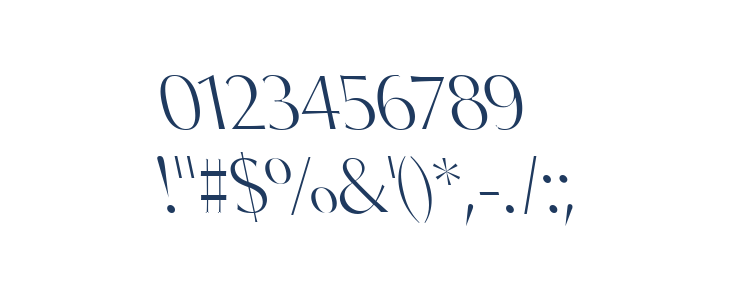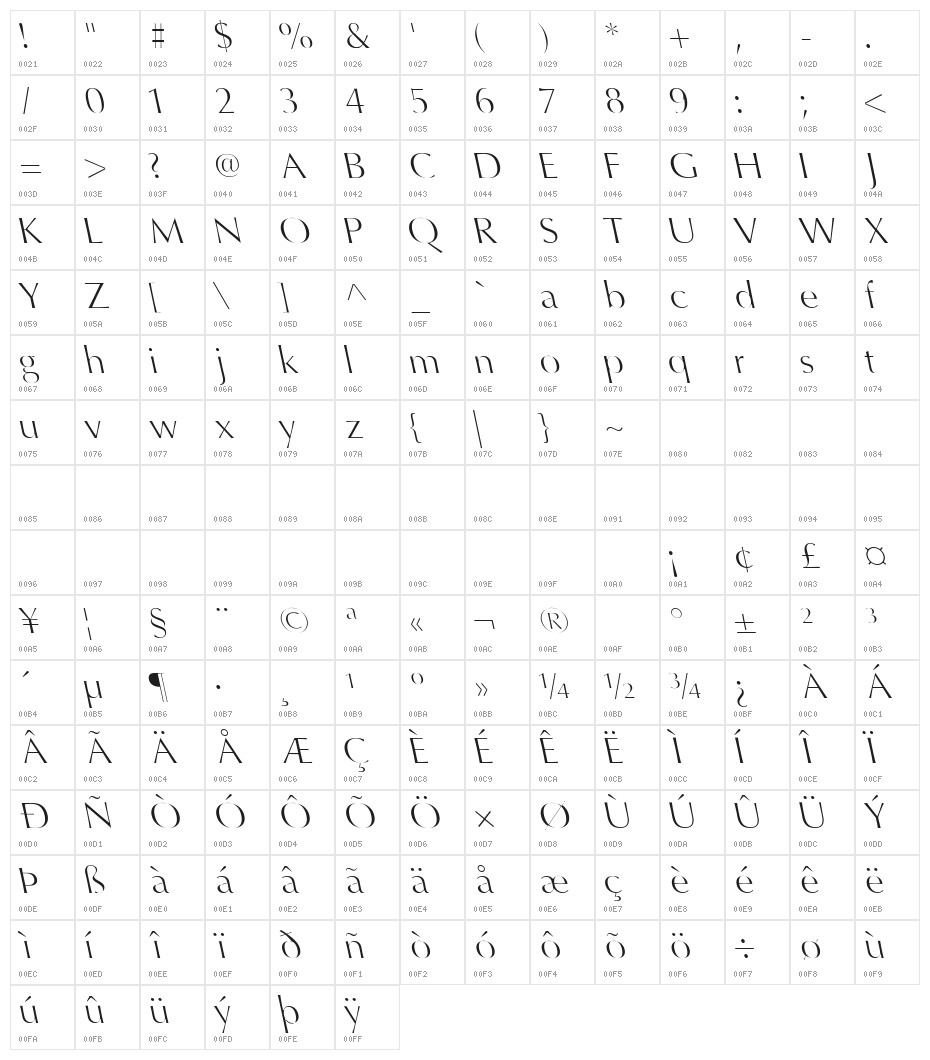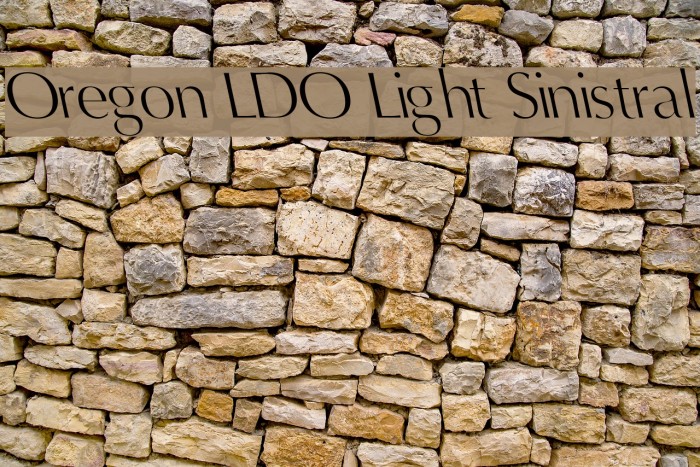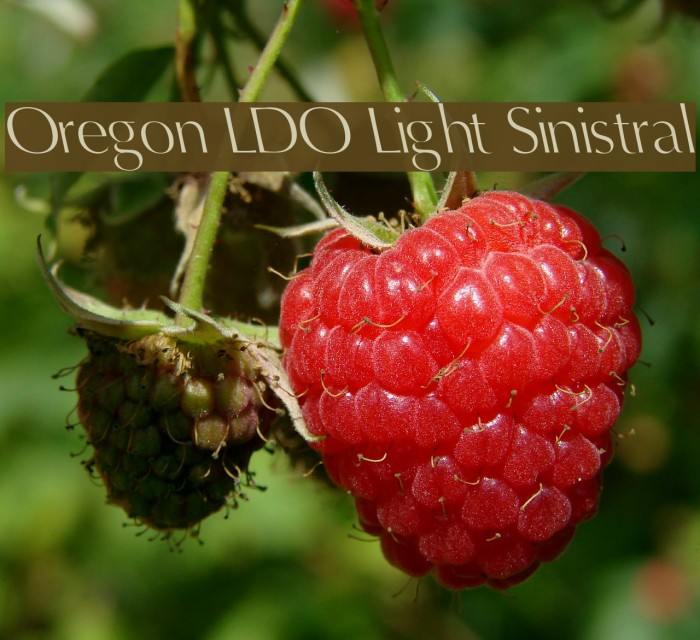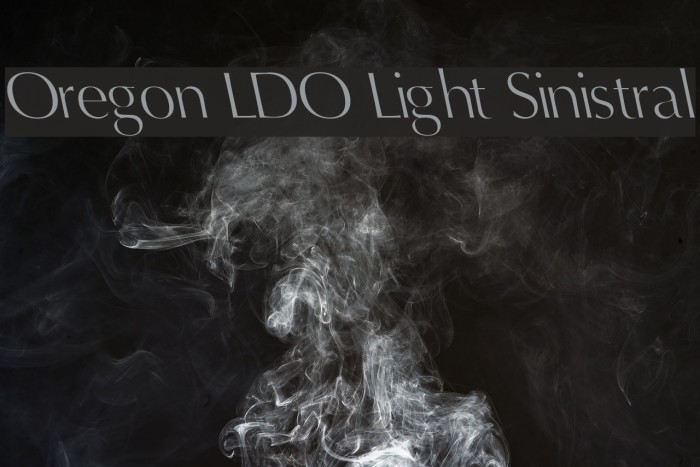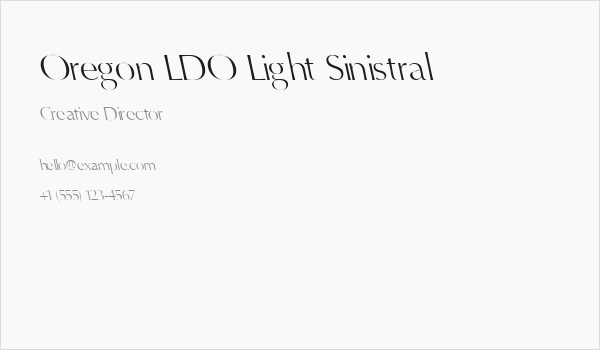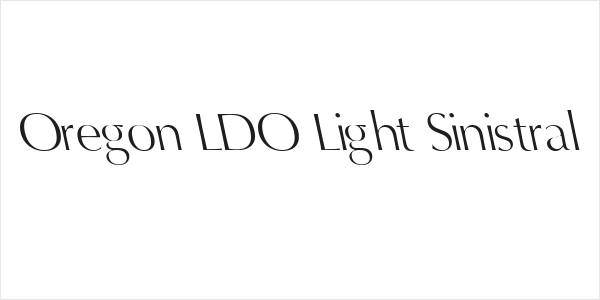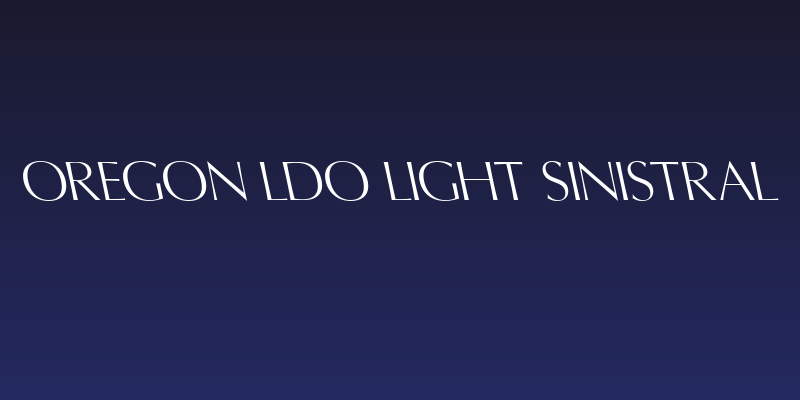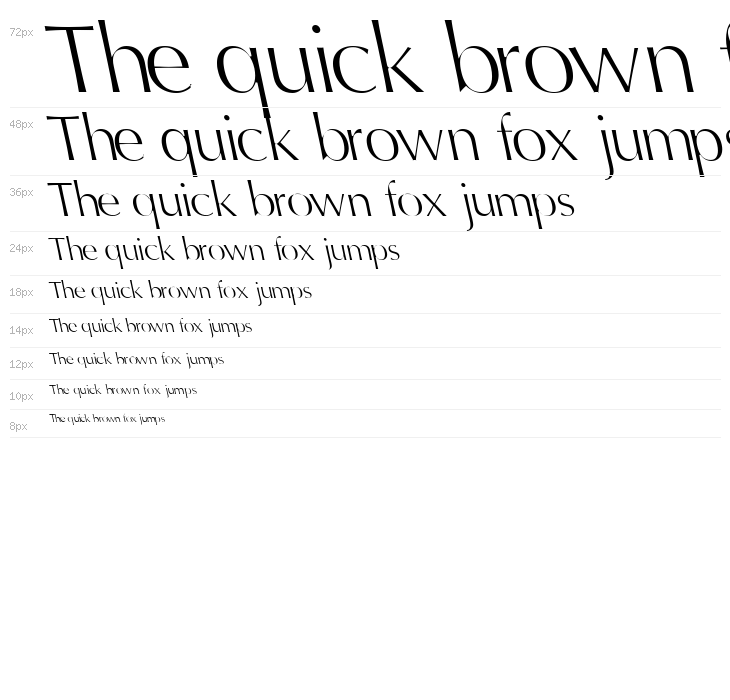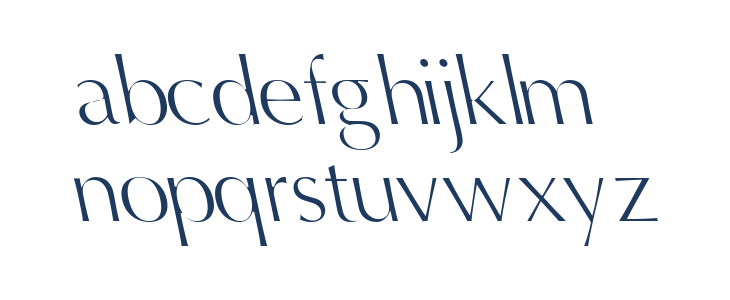
Oregon LDO Light Sinistral Font
Oregon LDO Light Sinistral Description
This font exhibits a modern and elegant style with a distinctively light and airy appearance. The characters are slightly condensed, featuring clean lines and a subtle slant that adds a dynamic feel. The uppercase letters are tall and slender, while the lowercase letters maintain a consistent flow with rounded edges. The numerals are proportionate and align well with the overall design. Special characters are crafted with precision, maintaining the font's sleek aesthetic. The font's light weight and high contrast between thick and thin strokes contribute to its sophisticated and refined look.
| Overall Style | Modern, Elegant |
| Proposed Projects | Ideal for luxury branding, fashion editorials, elegant invitations, and modern web design. |